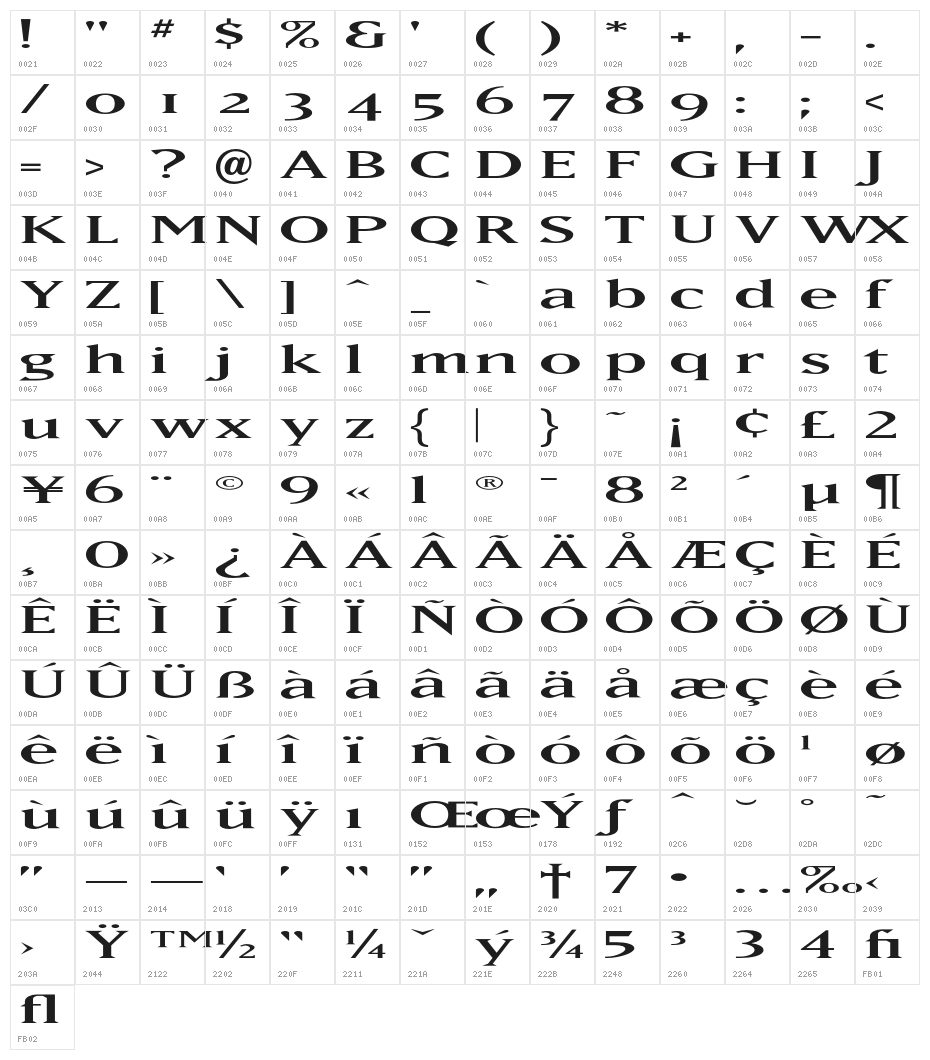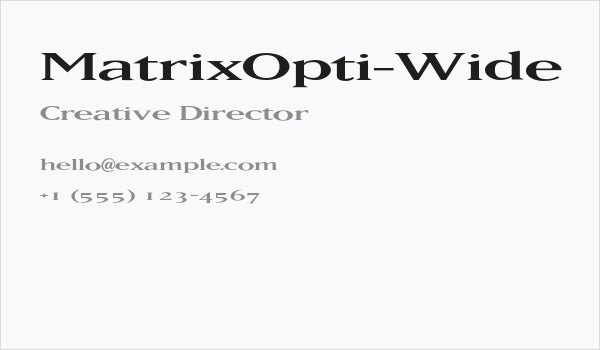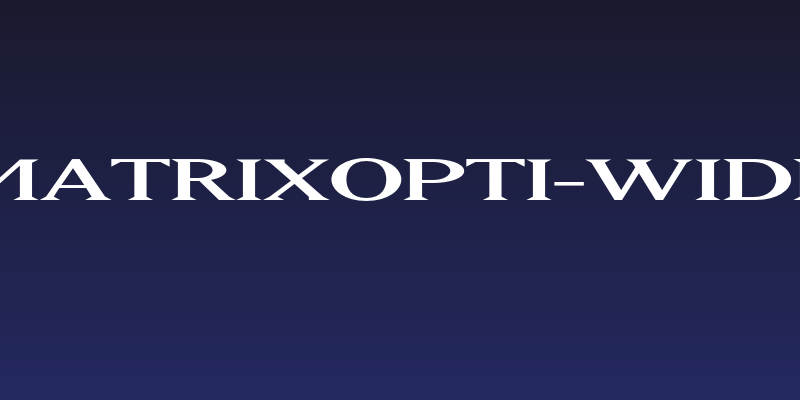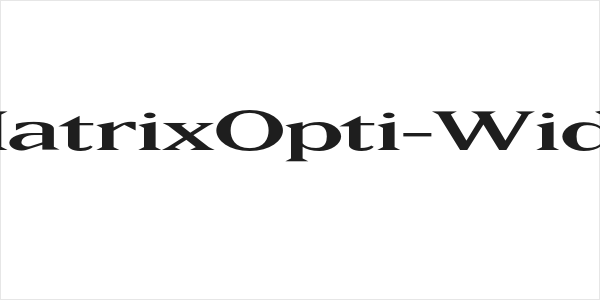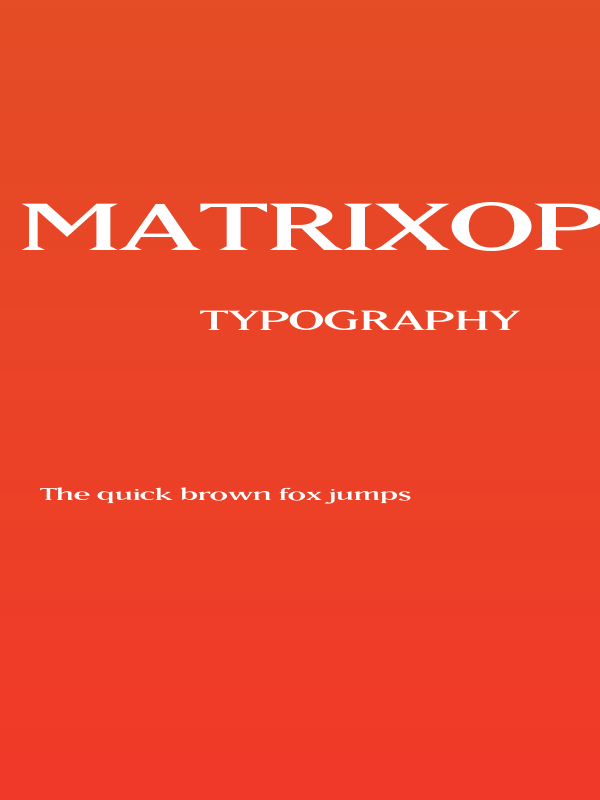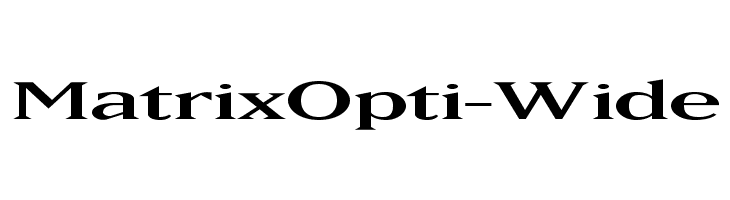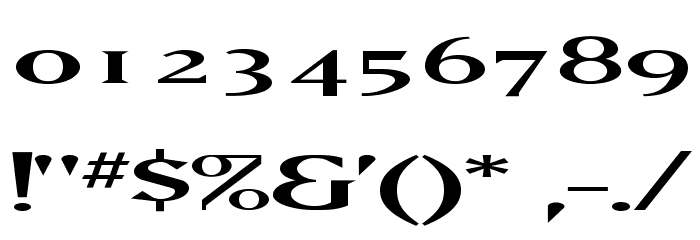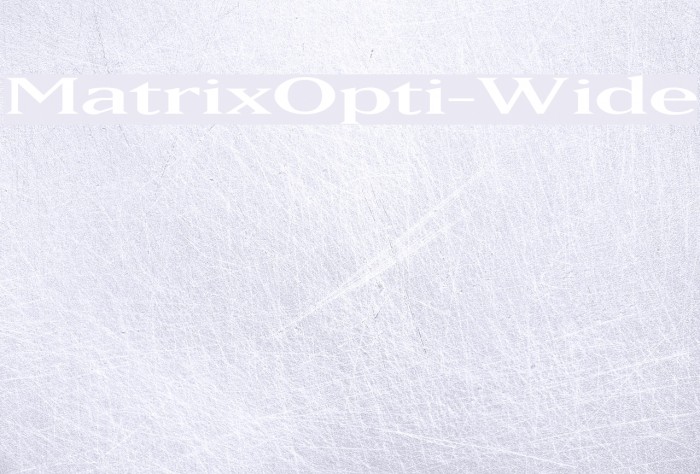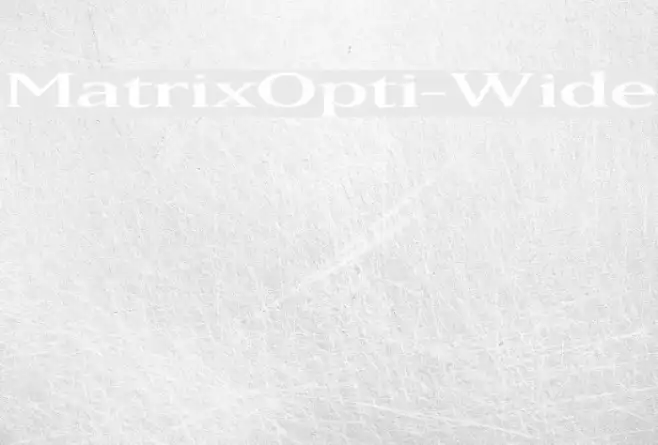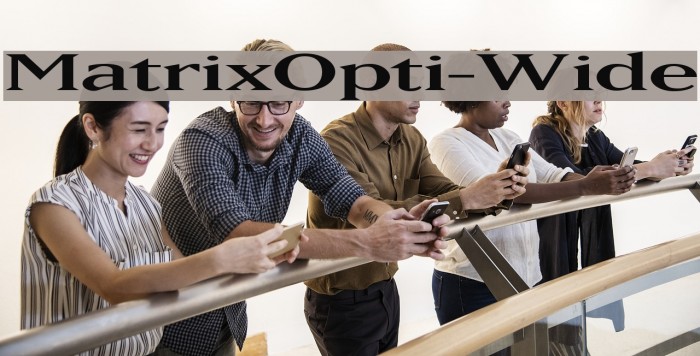
MatrixOpti-Wide Font
MatrixOpti-Wide Description
This font exhibits a bold and striking appearance with its wide letterforms and sharp serifs. The uppercase letters are particularly prominent, featuring strong vertical lines and angular serifs that give a sense of authority and elegance. The lowercase letters maintain a consistent style, with a slightly more subdued presence, yet they retain the sharpness and clarity of the uppercase. The numerals are well-balanced, aligning with the overall bold aesthetic. Special characters are designed with the same attention to detail, ensuring they integrate seamlessly with the rest of the typeface. This font's high contrast between thick and thin strokes enhances its readability and visual impact.
| Proposed Projects | Ideal for branding, headlines, posters, and any design requiring a strong, authoritative typeface. |